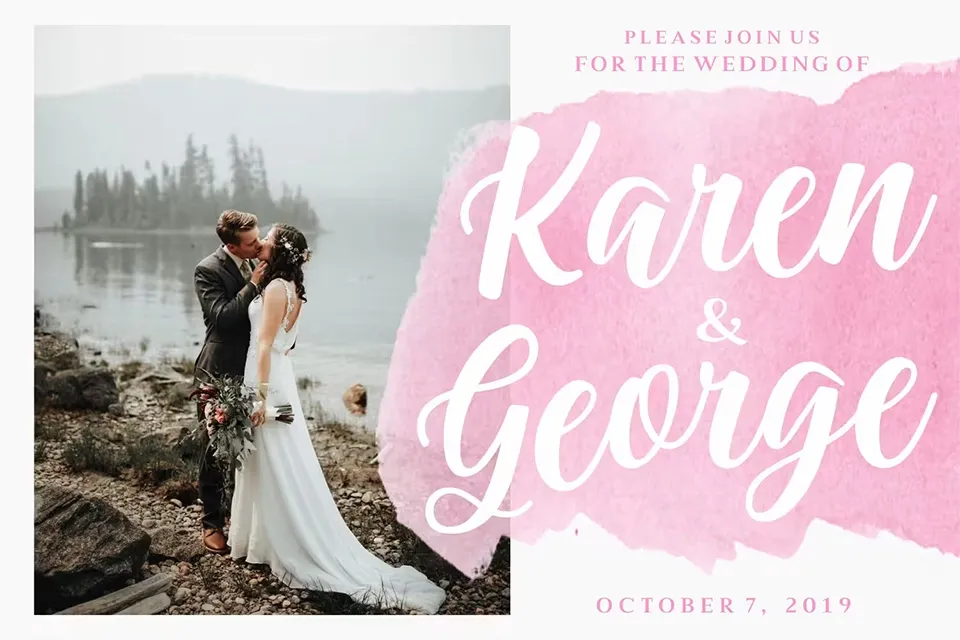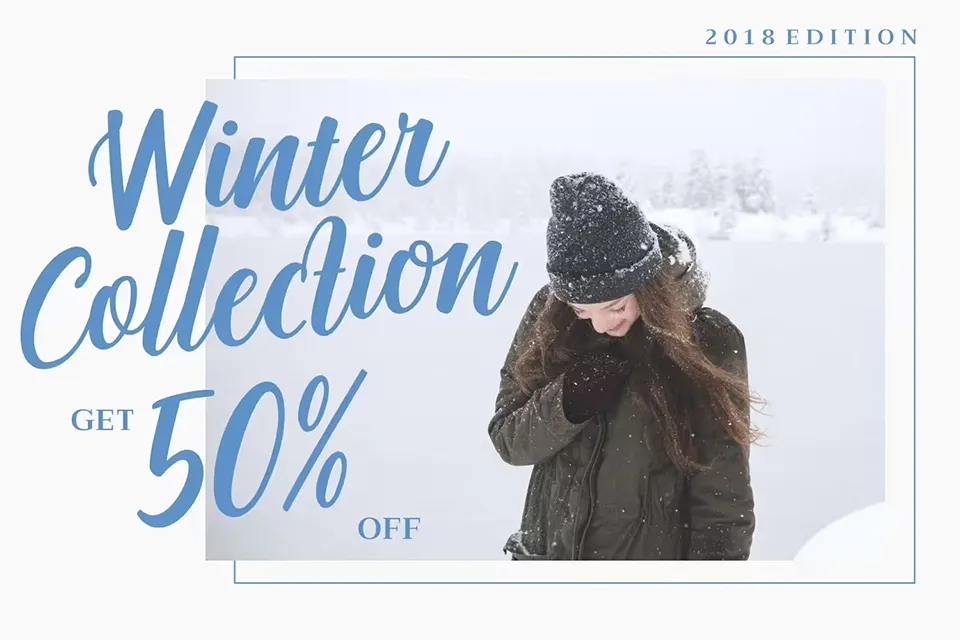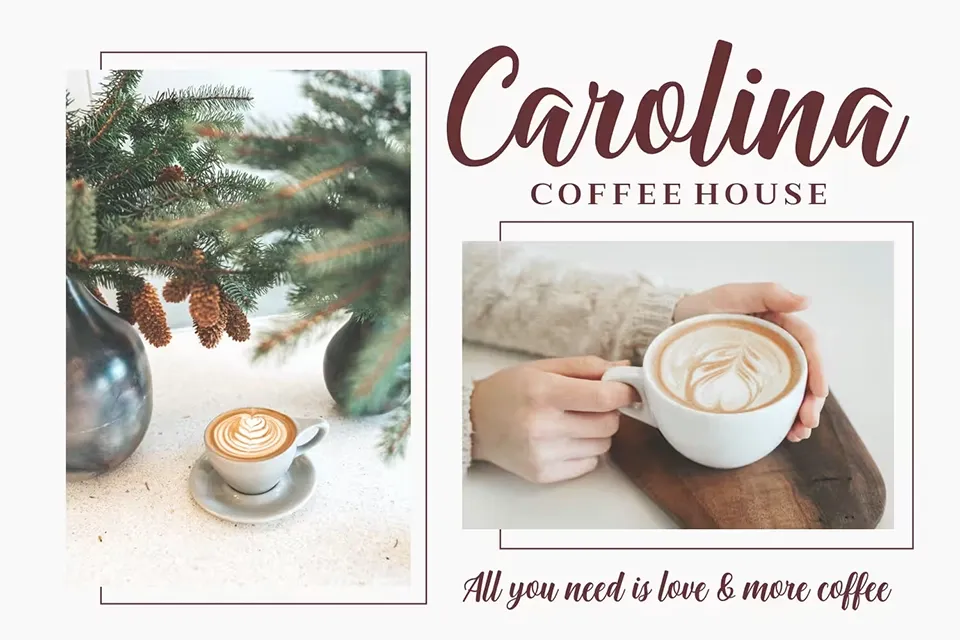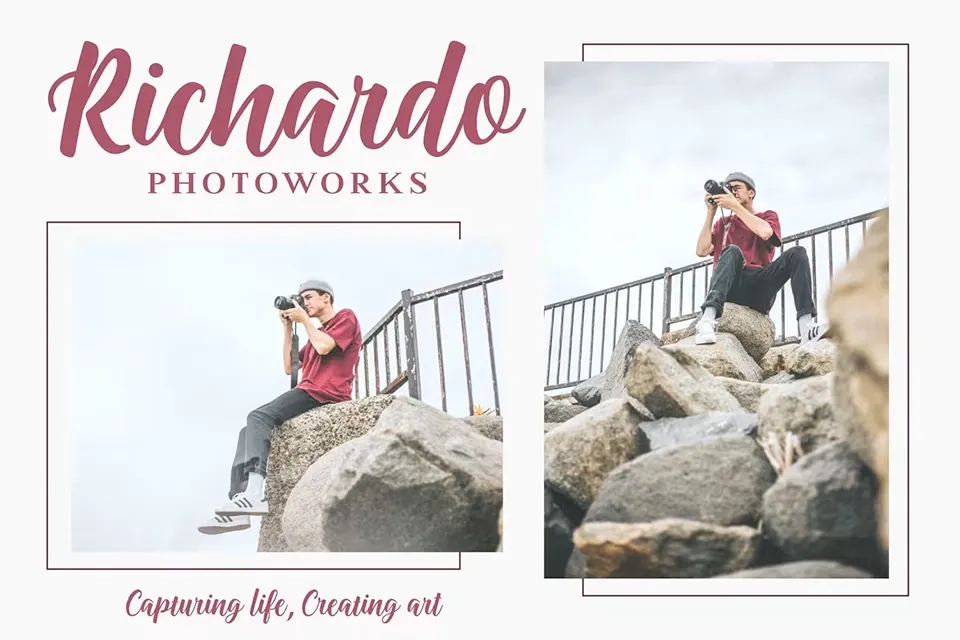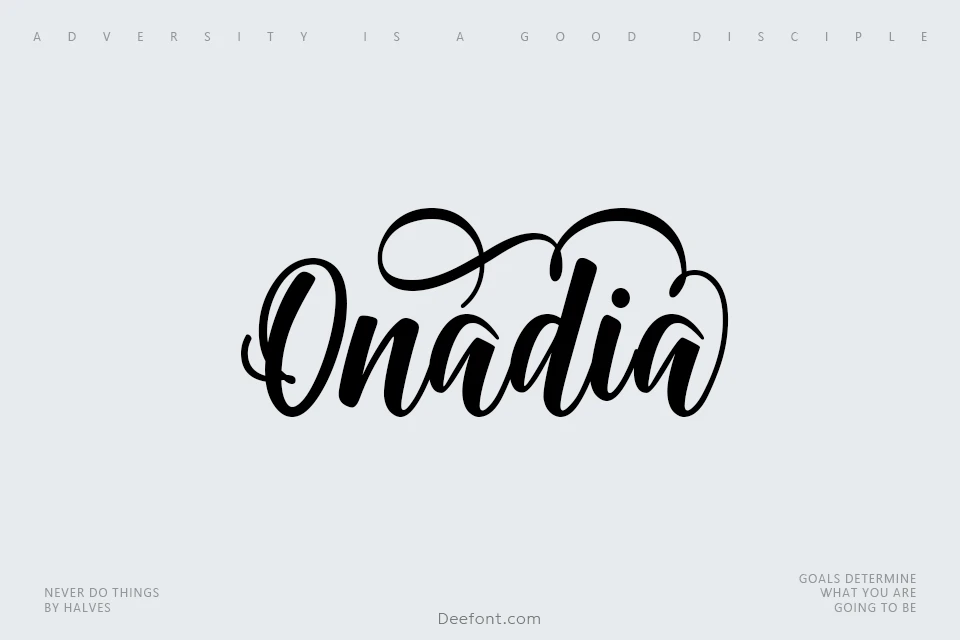
Onadio Font
Onadio Font is a bold and expressive hand-lettering script typeface. Characterized by its thick, flowing strokes and prominent decorative elements, it mimics the lively look of modern calligraphy. The font features large, looping ascenders and descenders, along with elaborate swashes that add a playful yet elegant touch. Letters connect smoothly, creating a cohesive and dynamic feel. Its vibrant and decorative nature makes Onadio well-suited for eye-catching headlines, invitations, branding for creative businesses, social media graphics, and craft projects where a touch of handcrafted charm is desired.